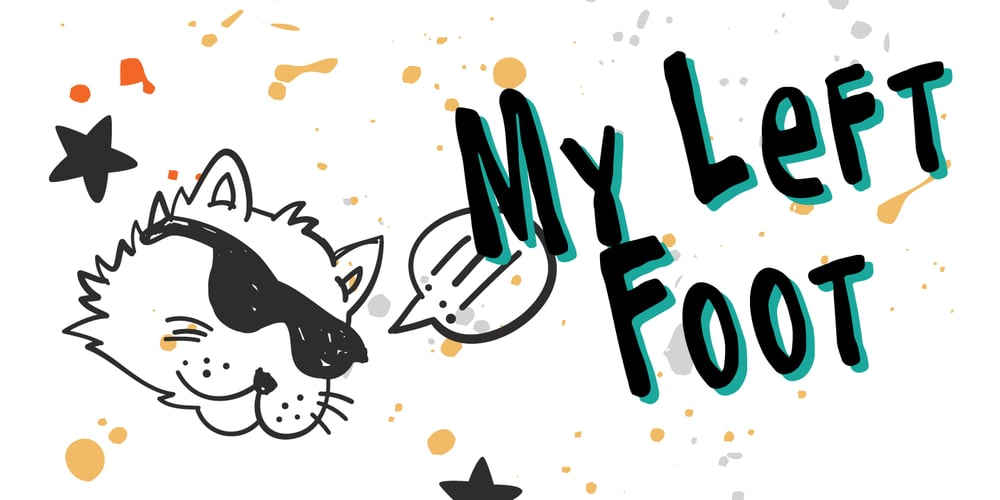
My Left Foot Font Family was designed by David Cohen, Dathan Boardman and published by Rocket Type. My Left Foot contains 1 styles and family package options. Don’t let the name fool you! My Left Foot was made by hand. Alts, ligatures and Vietnamese all included in this whimsical typeface. Go ahead and dip your toes in!